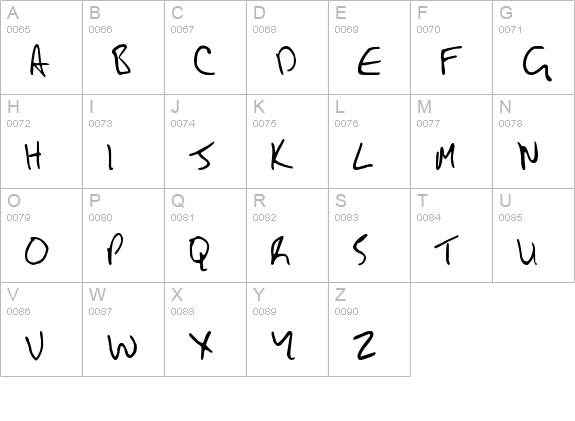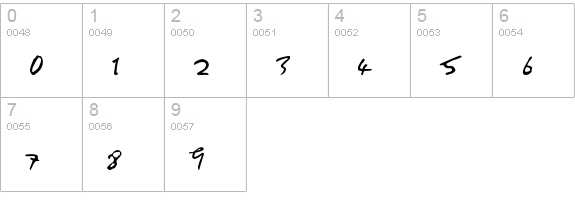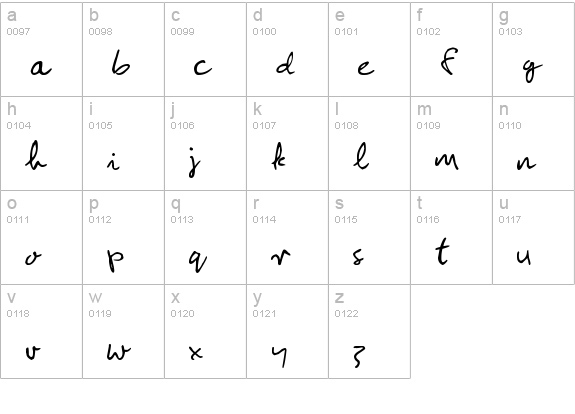
JohnLennon font is a breathtaking typeface that pays tribute to the legendary musician and peace advocate, John Lennon. This remarkable font captures the essence of Lennon's artistic spirit, with its fluid curves and playful yet elegant design. It is a true representation of his bold and revolutionary personality. With its versatile nature, JohnLennon font can be used for a wide range of design projects. Whether you're creating album covers, posters, or even personal artwork, this font will add a touch of artistic flair and evoke a sense of nostalgia. One of the best aspects of JohnLennon font is that it is free. Yes, you read that right! This exceptional font is freely available to download at FontsMarket.com, making it accessible to designers and enthusiasts alike. Now, you can incorporate the iconic style of John Lennon into your designs without any cost or limitations. Imagine the possibilities with JohnLennon font. Let it transport you to a world of creativity, where you can express yourself freely and bring your visions to life. Download this extraordinary font today and infuse your projects with the spirit of John Lennon's timeless artistry.